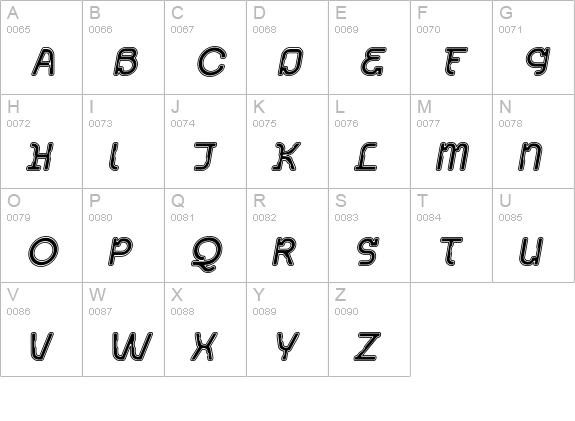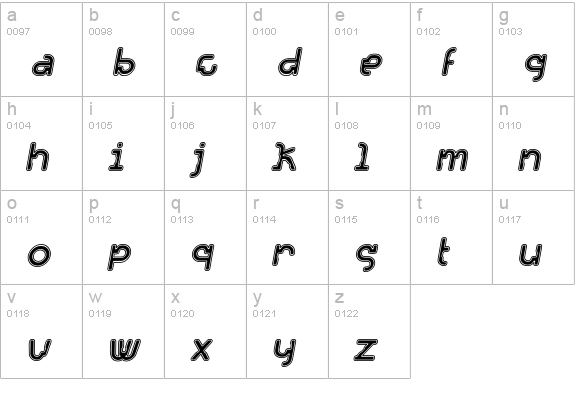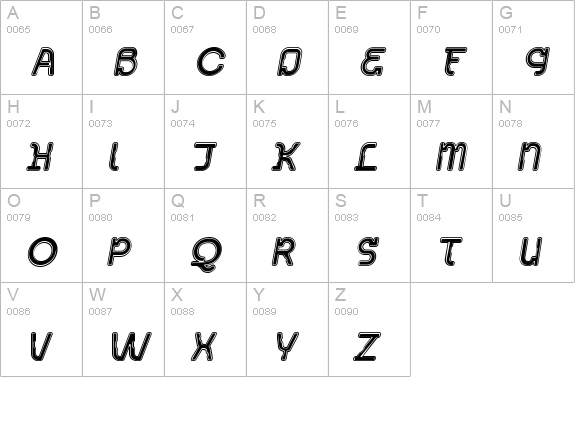
Acetone-CollegiateOblique Font Details
Introducing Acetone-CollegiateOblique font, a modern and stylish typeface that exudes sophistication and professionalism. This font features sleek lines and subtle curves that convey a sense of elegance and refinement. Perfect for adding a touch of class to any design project, from logos to branding to editorial layouts. What sets Acetone-CollegiateOblique font apart is not just its aesthetic appeal, but also its versatility. Whether you're creating a sleek business card or designing a sleek website, this font will elevate your project to new heights. The best part? Acetone-CollegiateOblique font is **free** to download at FontsMarket.com. So why wait? Elevate your design projects with this stunning font today!